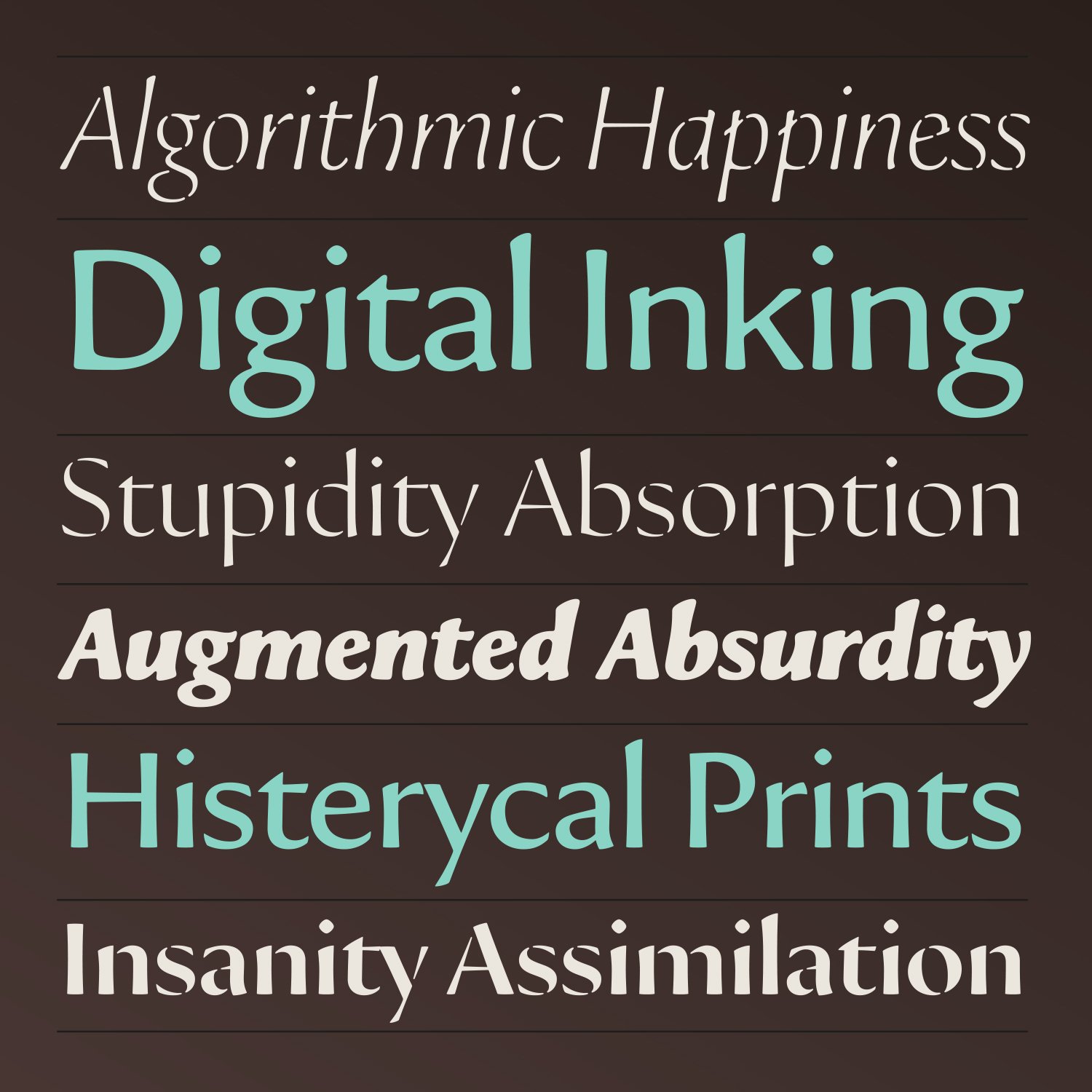
Jordi Embodas designed Tinta font. The Tinta typeface is a rebellion against sterility and cold perfection. In a time dominated by supersharp offset printi...